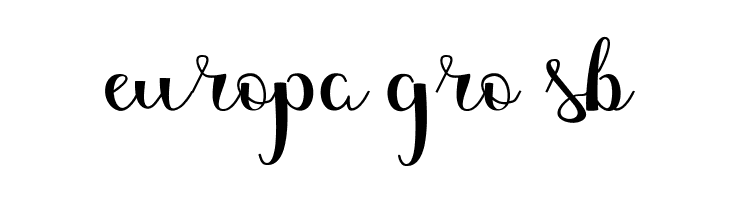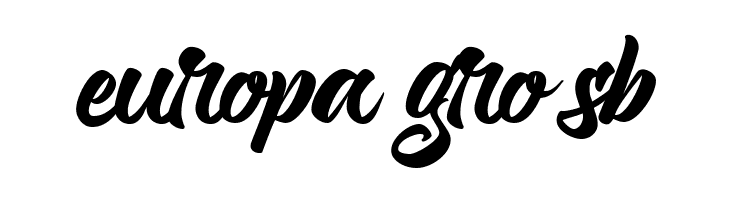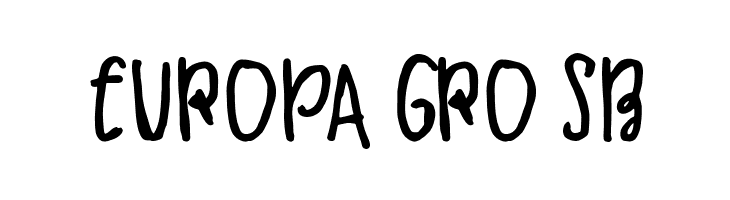
• MagicBats
Whimsical pictorial dingbats with storybook and fantasy themes.
• MagicHelloWien
A whimsical, illustrative display font with each character embedded in unique artwork.
• MagicLanternNF
A bold, geometric font with a playful, vintage style.
• MagicMoments
Cartoon magician-themed dingbat font with playful illustrations.
• MagicStick FREE
An elegant, cursive font with a handwritten style.
• Magifera FREE
An elegant, flowing script font with interconnected, cursive lines and graceful curves.
• MagikMarker
A bold, graffiti-inspired font with dynamic, expressive strokes.
• MagikMarker_Free
A bold, graffiti-inspired font with dynamic strokes and sharp angles.
• Magnificent Free
A playful and artistic script font with dynamic strokes.
• Magnison Script Free Demo Reg
A flowing, elegant script font with decorative flourishes.
• Magnolia Italic
An elegant and sophisticated script font with intricate swashes.
• Magnolia Light
An elegant script font with intricate swashes and flowing lines.
• Magyarish
A decorative and artistic font with intricate patterns and unique embellishments.
• Mahoni Free Personal Use
A bold, expressive handwritten font with playful curves and thick strokes.
• Mailart
An eclectic and artistic display font with diverse, whimsical character designs.
• Mailart Graphics
A decorative, mail art-inspired graphic and text stamp collection with varied styles.
• Mailart Rubberstamp
A distressed, vintage serif font with a rubber stamp texture.
• Main Kind Free Trial